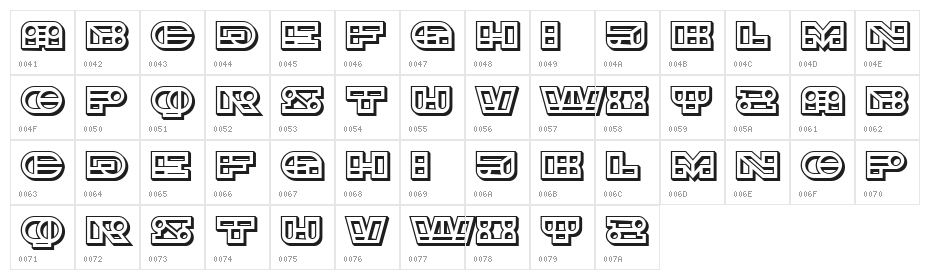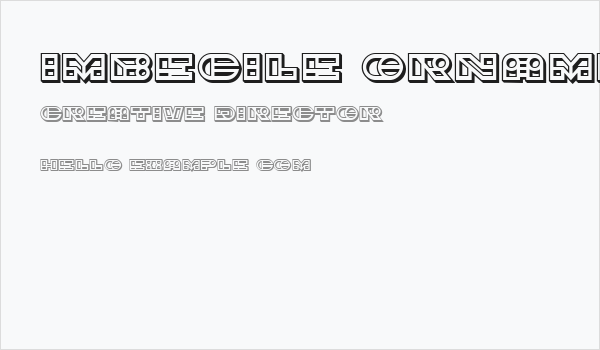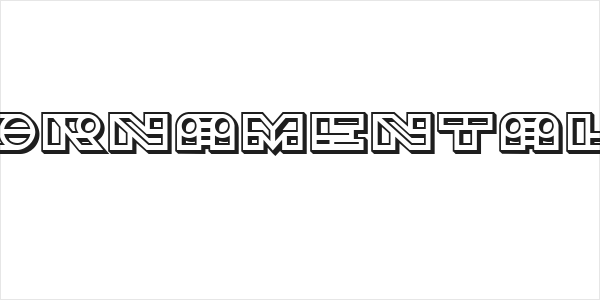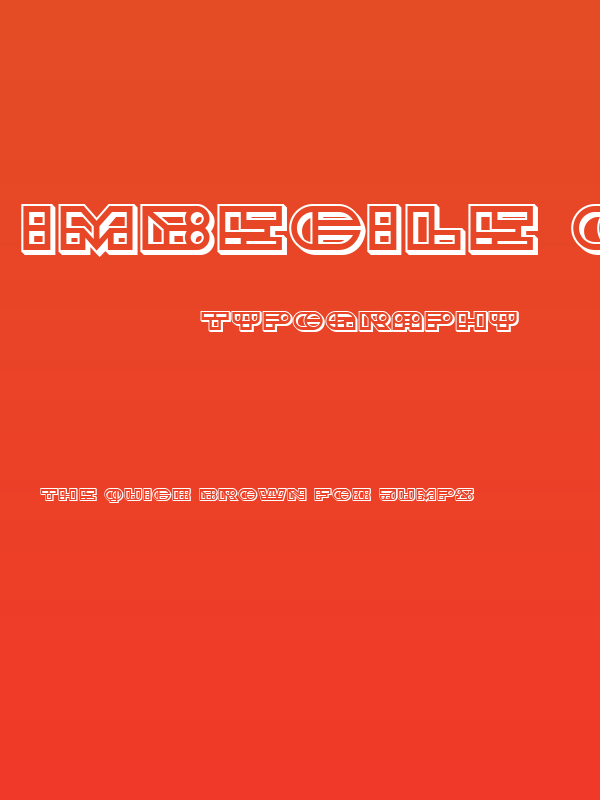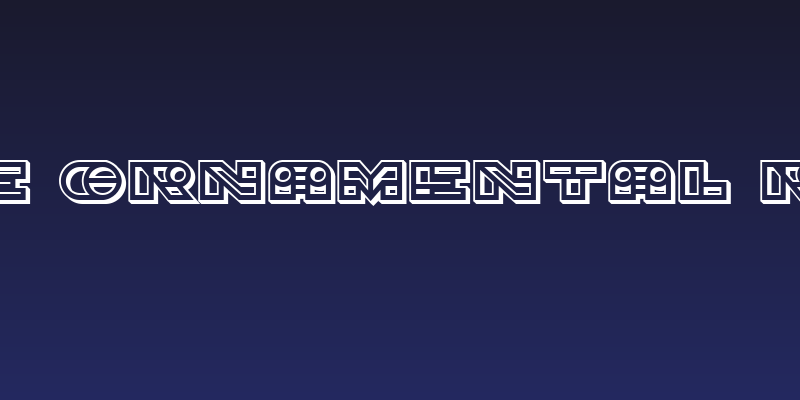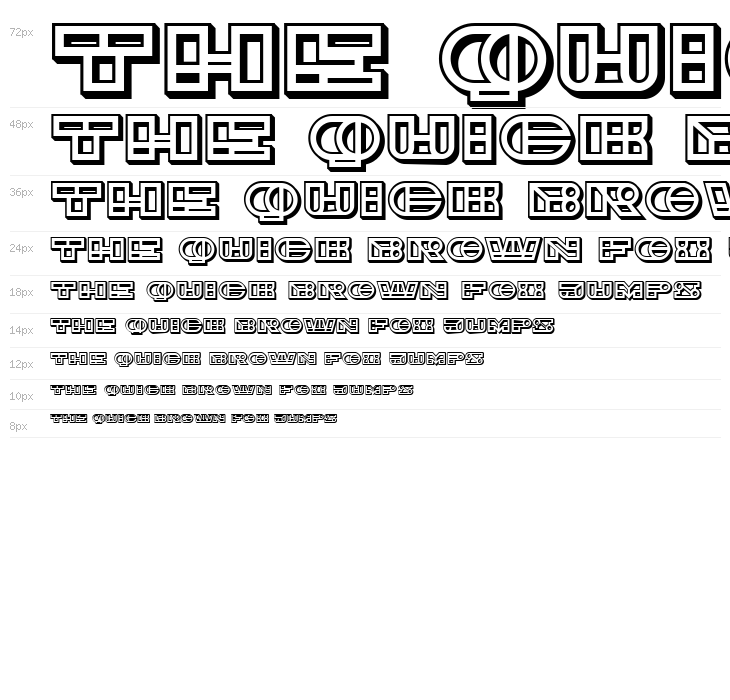
Imbecile Ornamental Regular Font
Imbecile Ornamental Regular Description
This font features a highly decorative and ornamental style, characterized by intricate patterns and geometric shapes within each letterform. The design incorporates a bold outline that enhances its visual impact, making it stand out prominently. Each character is uniquely crafted with a combination of lines, dots, and curves, creating a complex and artistic appearance. The font's playful and creative nature makes it suitable for projects that require a distinctive and eye-catching typeface. Its elaborate design elements suggest a sense of whimsy and creativity, perfect for artistic and unconventional applications.